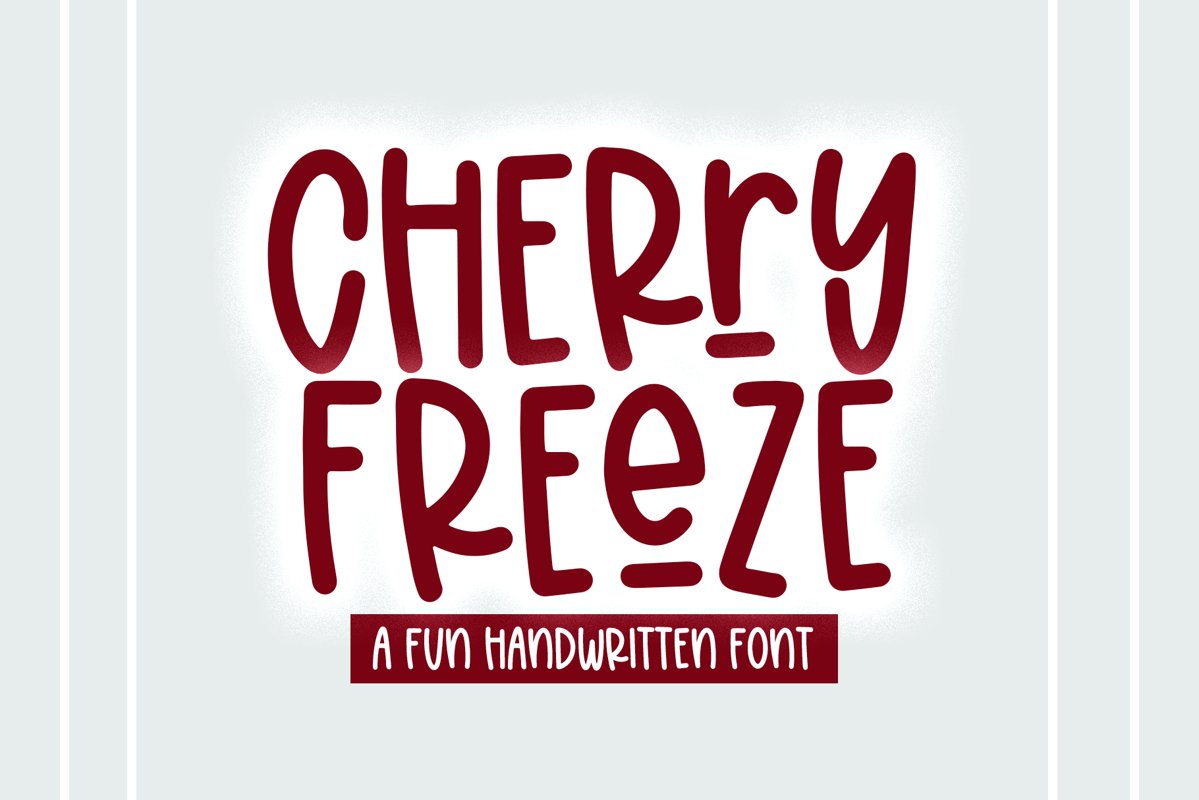
Cherry Freeze is a fun and quirky handwritten font!
This font is perfect for quotes, shirt designs, websites, branding, children's designs, svg designs, blogs, logos, invitations and more!